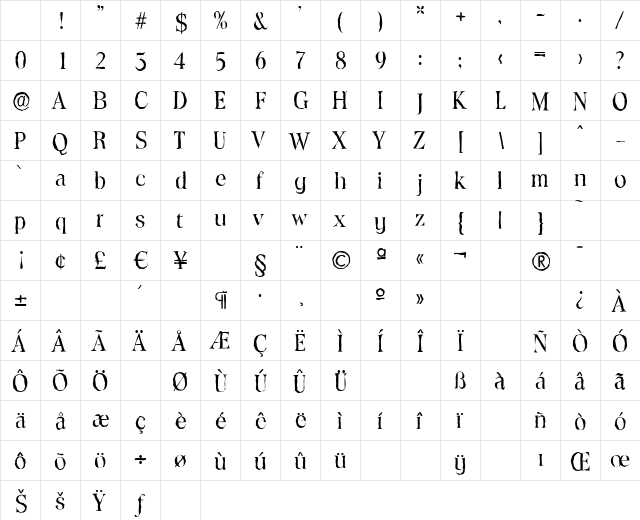
Complete ToledoAntique Regular glyph index. Displaying only characters natively supported by ToledoAntique Regular font.
ToledoAntique wears its vintage influences proudly, with letterforms that recall mid-century signage, classic packaging, and nostalgia-driven design.
Font Pairing: Combine ToledoAntique with a simple slab or neutral sans - period-accurate companions reinforce the vintage feel without competing for attention.
Pro Tip: Lean into ToledoAntique's period character by pairing it with aged paper textures, muted colour palettes, and vintage illustration styles.